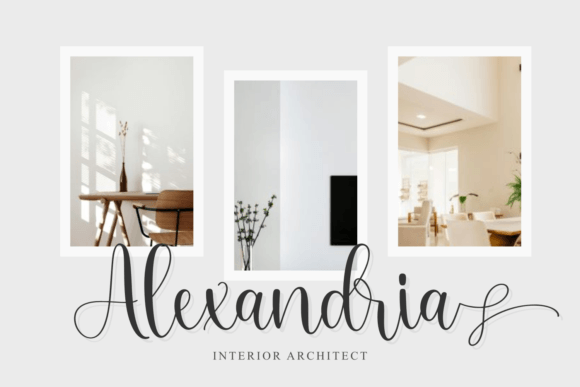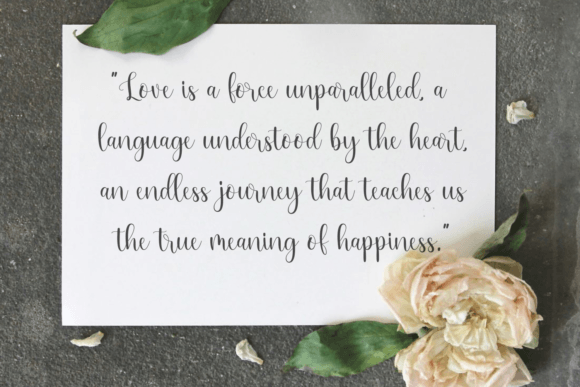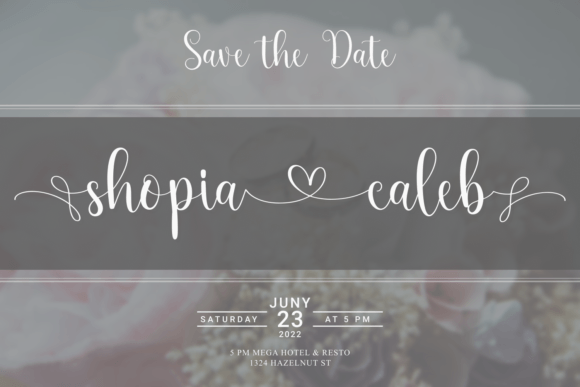
Hello Better Font: Elegant Script for Wedding Invitations & DIY
About the Hello Better Font
Welcome to the world of Hello Better Font, a typeface that will inspire your next great project. Hello Better is an elegant script font featuring heart-shaped swashes, adding a romantic touch to its simple and graceful style. Ideal for projects seeking a tasteful and inviting vibe, this font effortlessly balances sophistication with charm.
Hello Better excels in projects requiring a touch of romantic elegance. It’s perfectly suited for wedding invitations, branding for beauty or fashion companies, and short, impactful headlines. The heart-shaped swashes add a unique, memorable detail. However, avoid using it for large blocks of text or UI elements; its script nature hinders readability in extended passages.
For optimal pairings, consider pairing Hello Better with a clean sans-serif like Lato for a modern contrast, or a classic serif such as Garamond for a more timeless feel. A geometric sans-serif would also create a striking visual balance, offering a contemporary juxtaposition to the font’s flowing script.
The overall personality of Hello Better is sophisticated yet approachable, conveying charm and a touch of playful femininity without being overly saccharine. Its delicate elegance makes it a versatile choice for projects that require a balance of refinement and warmth.
Hello Better Font Usage Examples
Hello Better Font Example